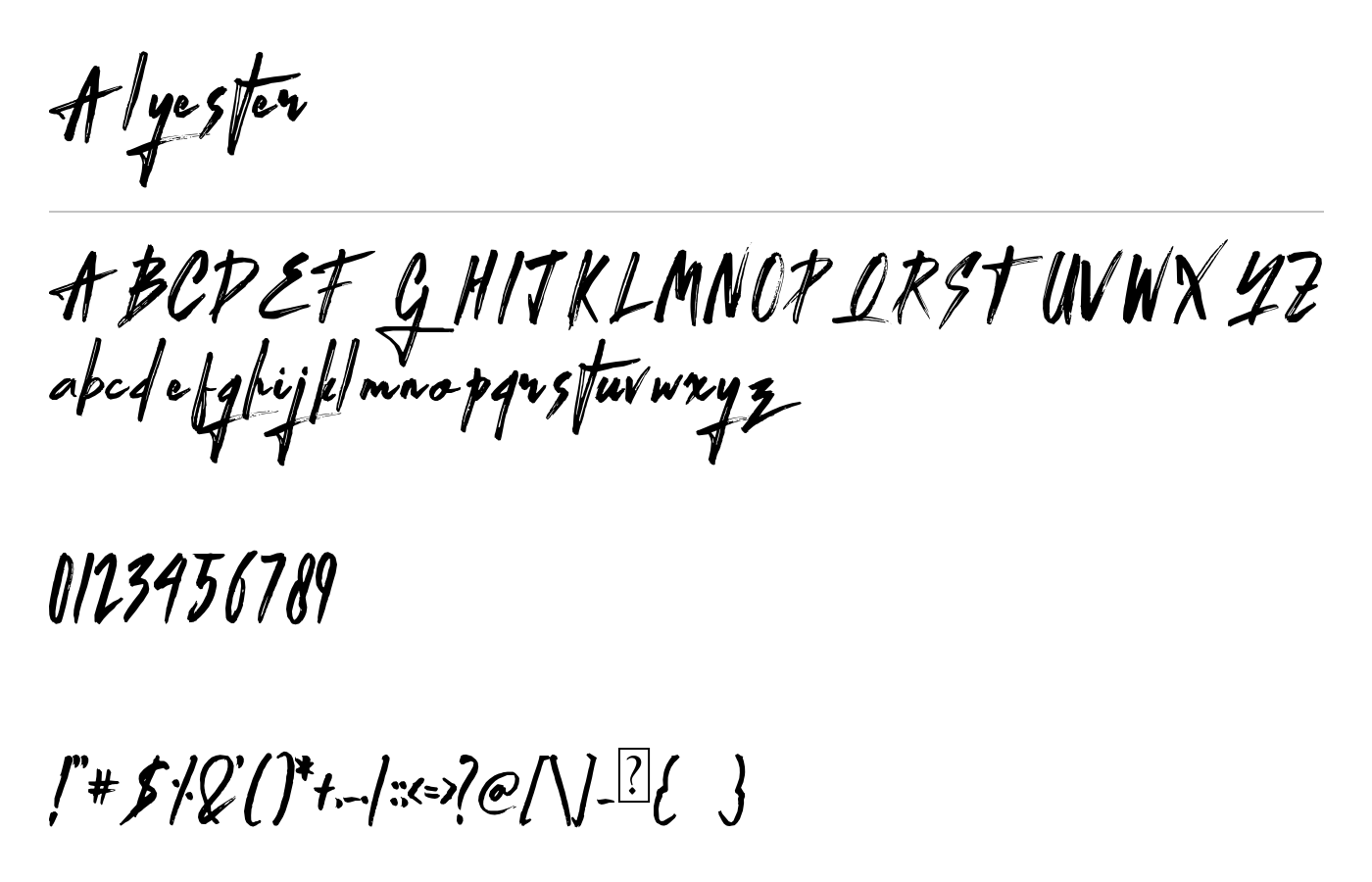
Alyester is an energetic and expressive handwritten brush font that captivates with its dynamic, rough strokes and slightly tall, narrow letterforms. Its uneven texture and fluid, casual style make it perfect for designs that want to convey creativity, boldness, and a personal touch. Ideal for branding, posters, and social media graphics, Alyester adds a lively, authentic feel that stands out with attitude and artistic flair.
Alyester Font
About Alyester Font
| Font family | Alyester Font |
| Designer | Liartgraphic |